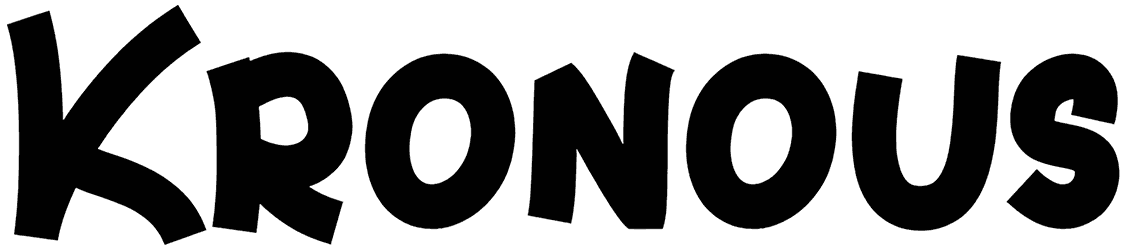
Kronous Font
The Kronous font is perfect for adding a smooth, rounded look to your digital artwork without sacrificing any of its professional polish. In spite of missing lowercase letters and number characters, this stylish, cartoon font with two styles is popular for usage in advertisements, flyers, fashion, and clothing because of the striking appearance it provides.